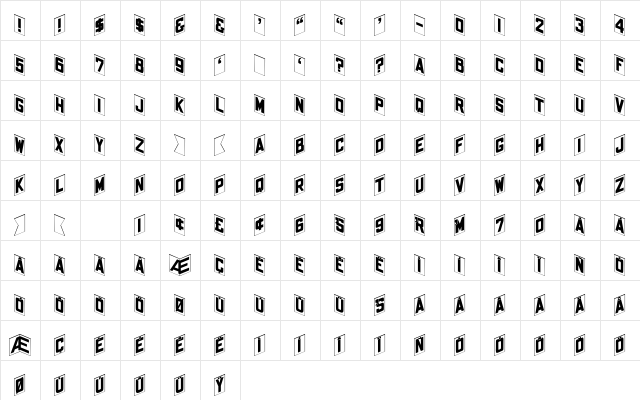
Fanzine Regular
Design Context for Fanzine Typeface
Fanzine is a composed and adaptable typeface that performs quietly and consistently across a wide range of design contexts.